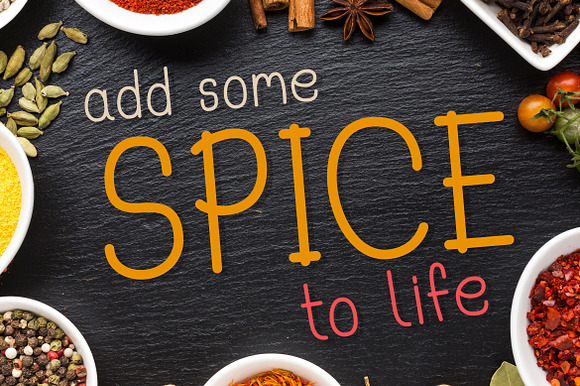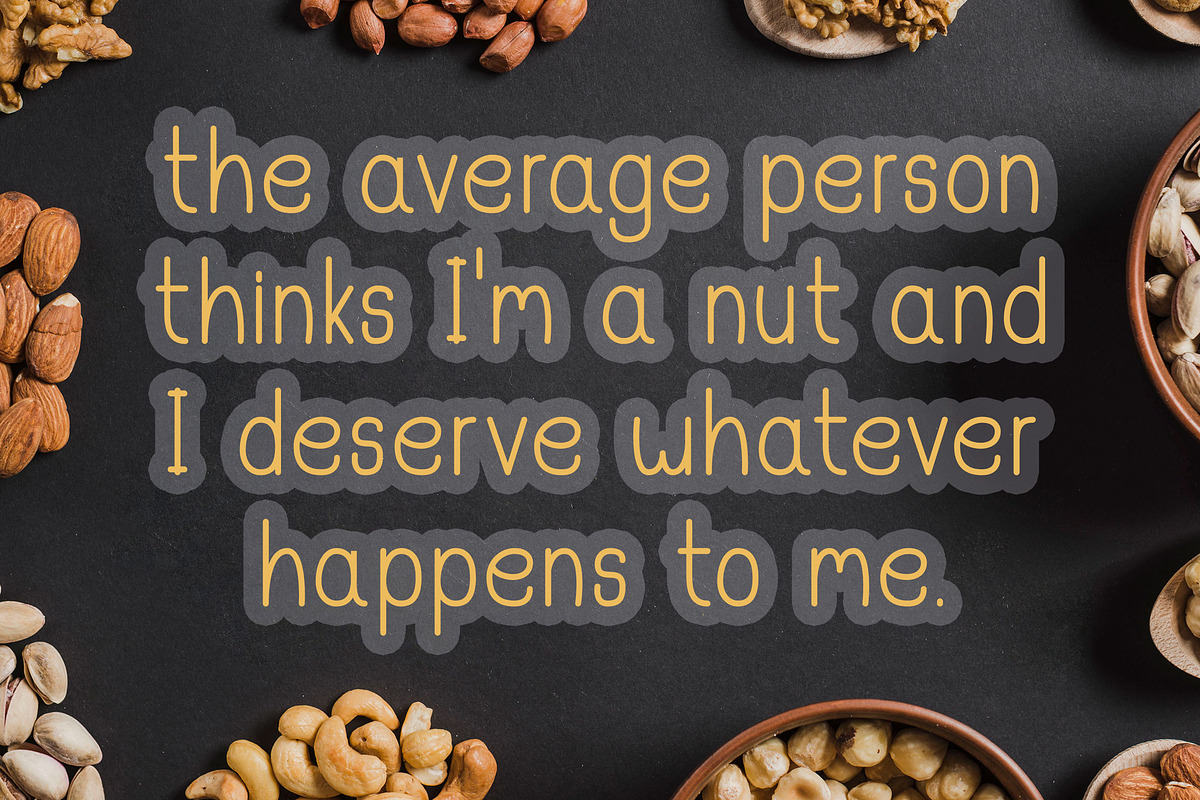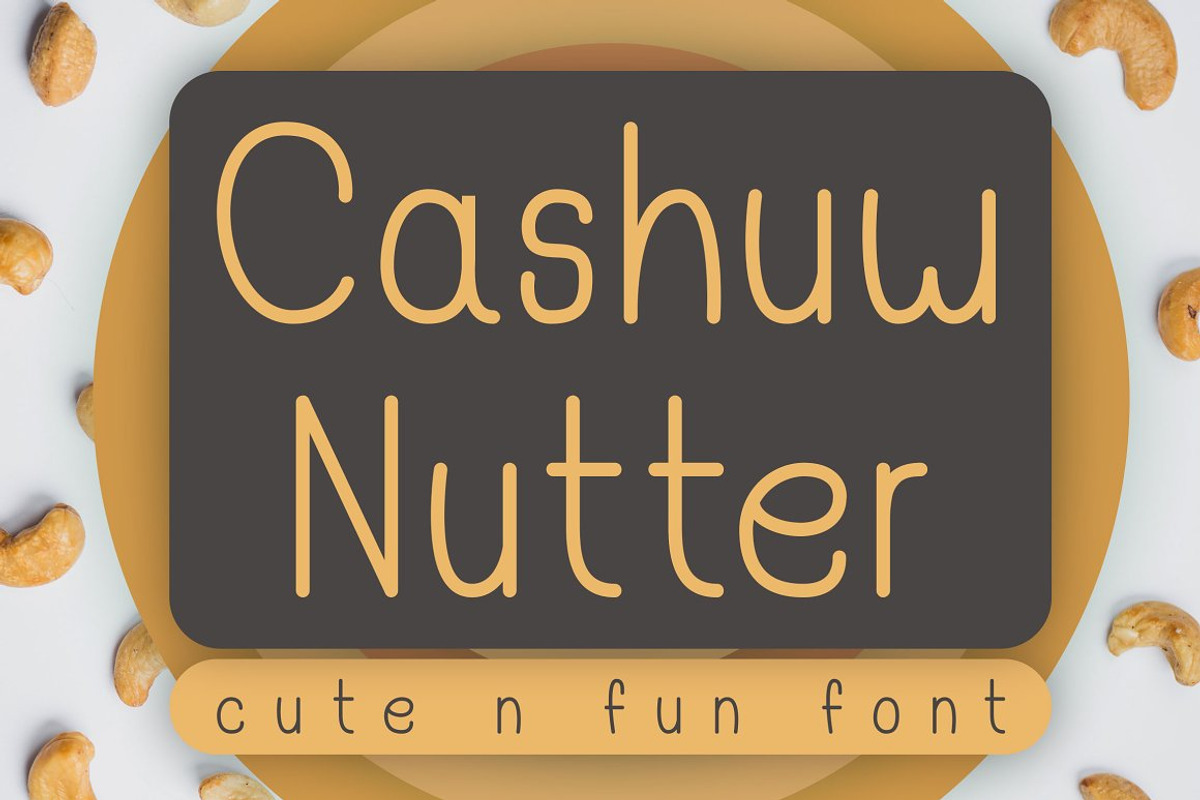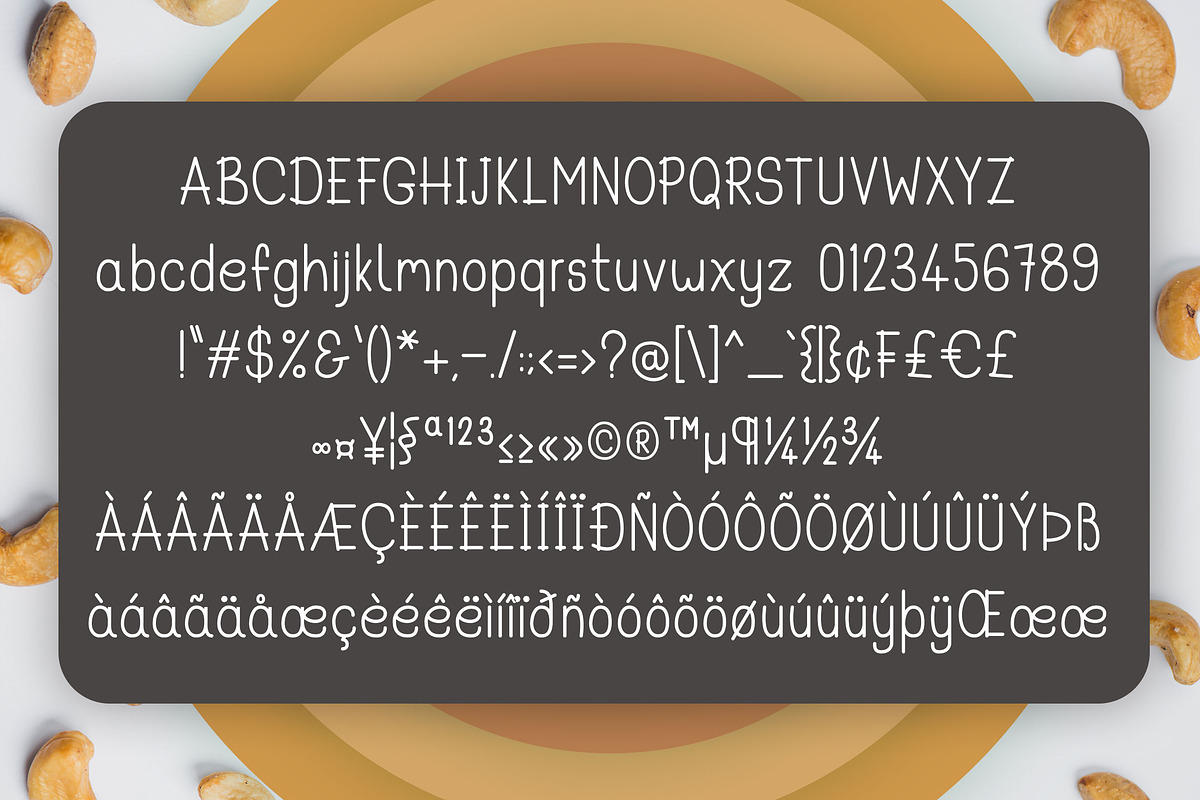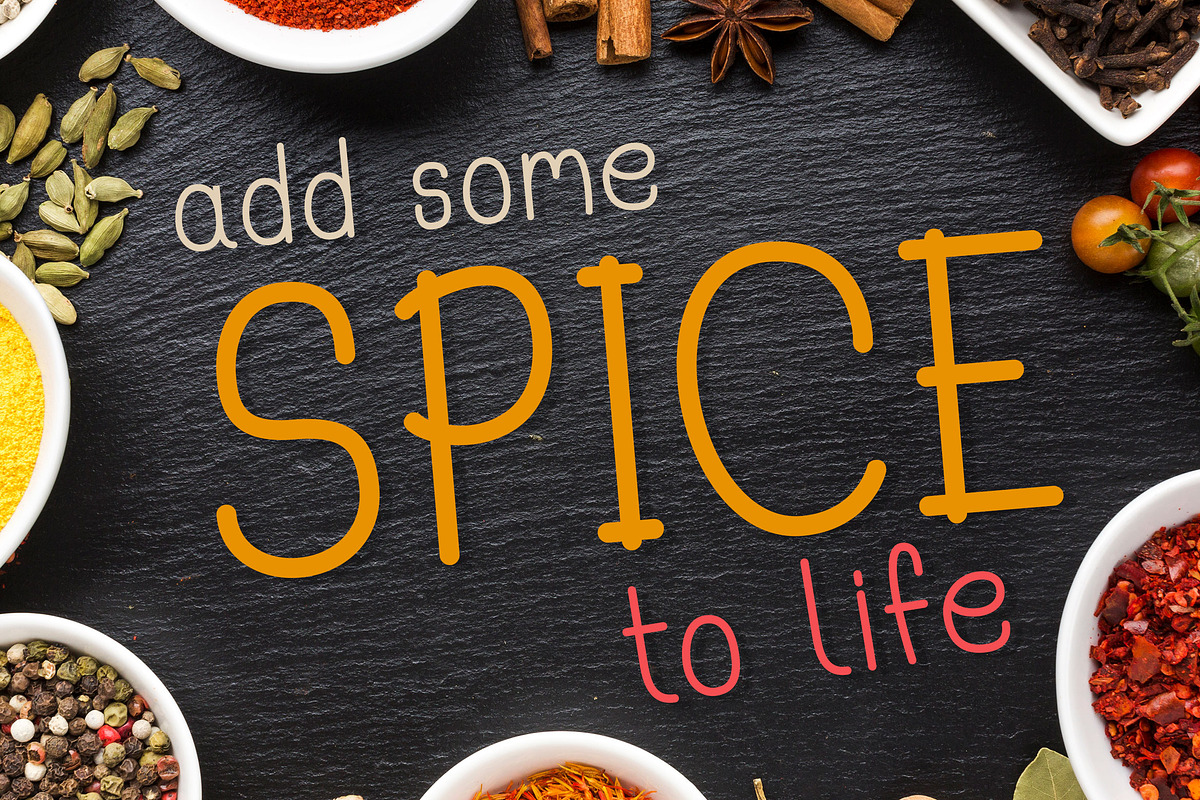
Cashuw Nutter - Cute - Fun Font
Simple cute - fun font, suitable for crafts, banners, heading, title and more.
Basic Latin + Multilingual Support
Cashuw Nutter - Cute - Fun Font by Dasagani fits naturally into Branding, posters, packaging, typography.